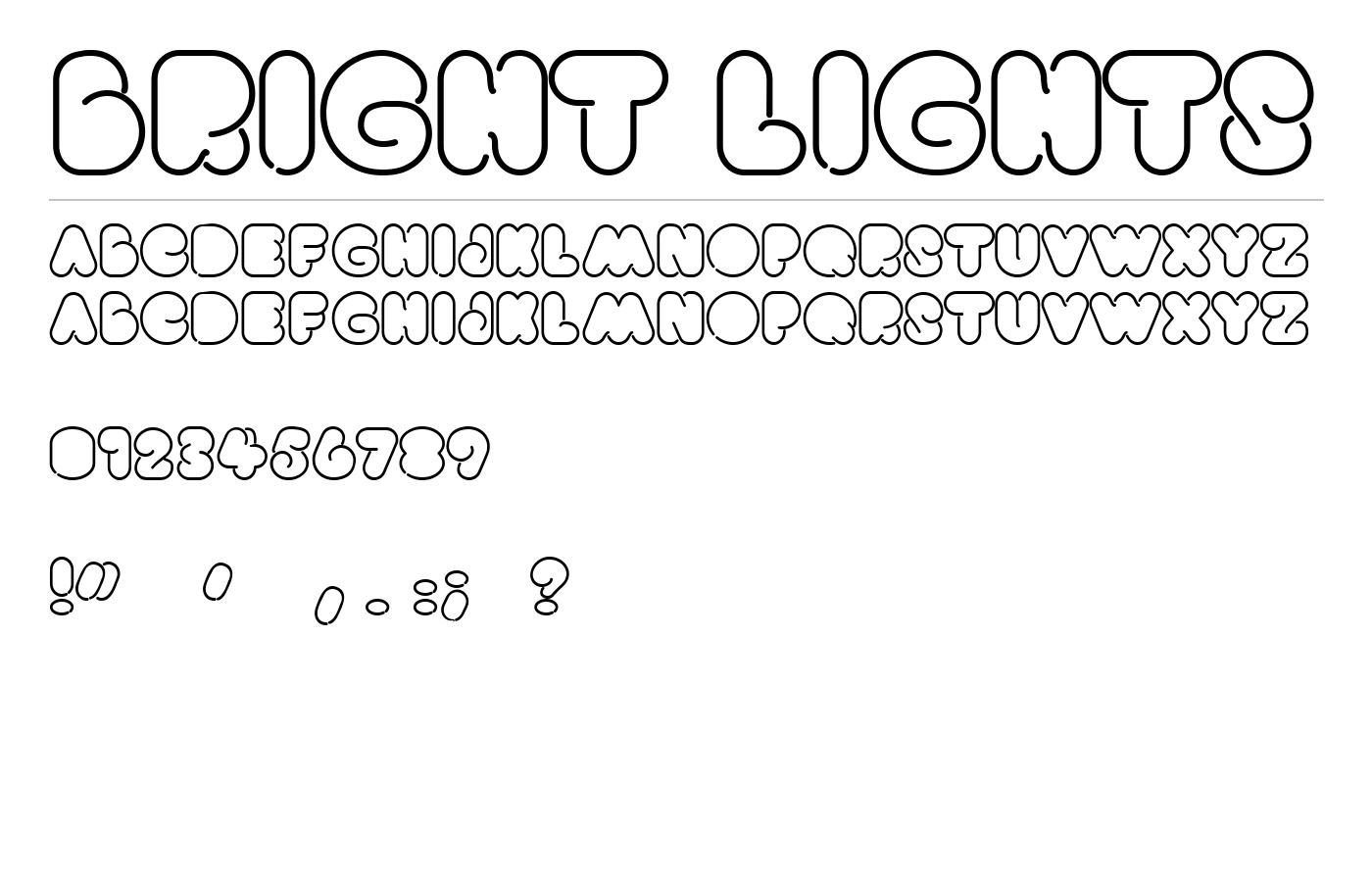
Bright Lights is a playful and modern sans serif display font with rounded, bubbly letterforms that create a fun and inviting vibe. Its consistent medium weight and wide, open shapes make it highly legible for headlines and branding that aim to capture attention with a cheerful and approachable personality. Ideal for use in logos, posters, and packaging, Bright Lights adds a fresh, youthful energy to any creative project.
Bright Lights Font
About Bright Lights Font